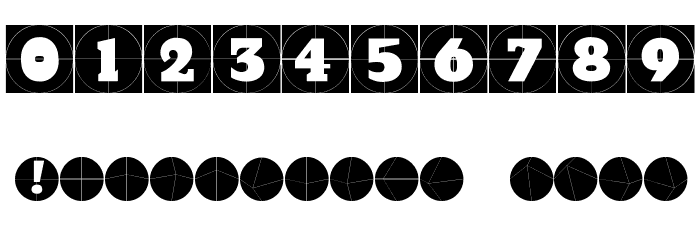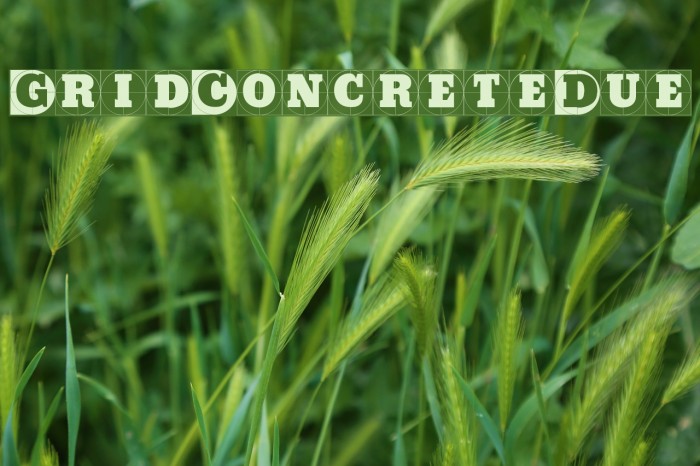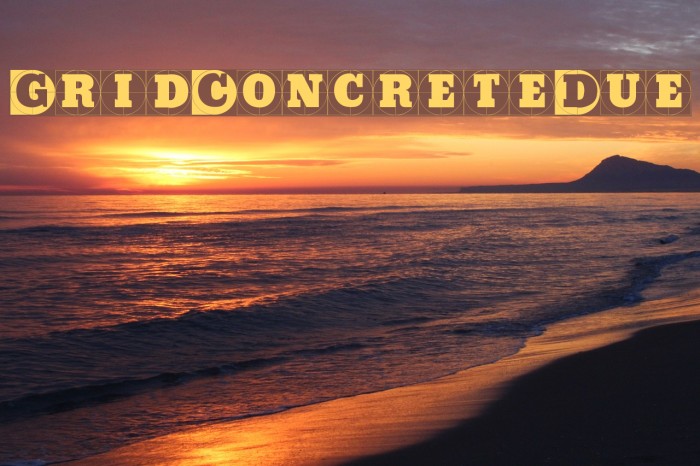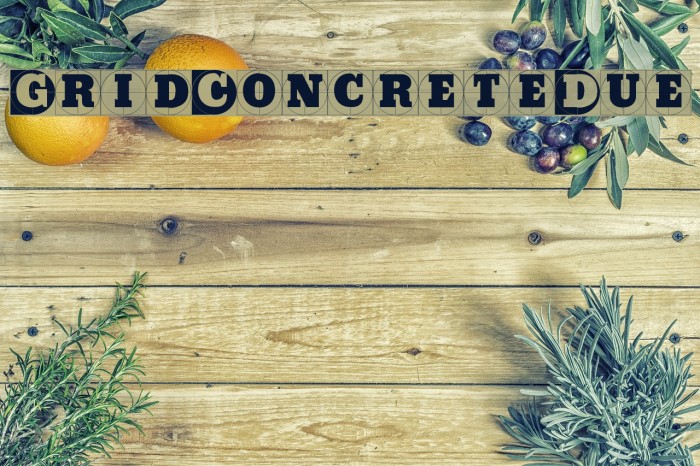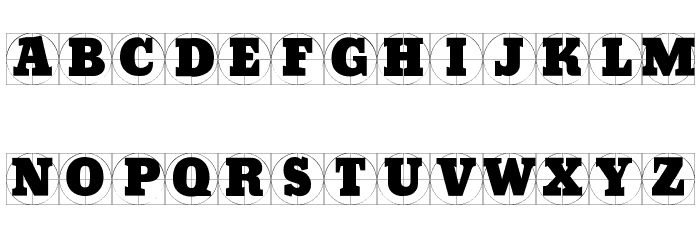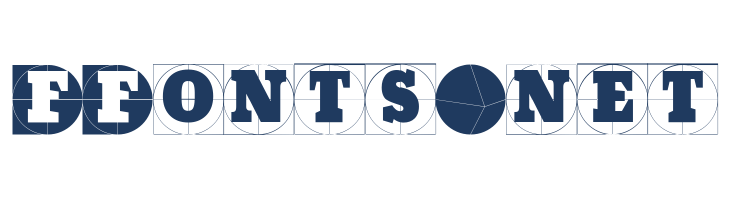
GridConcreteDue Font
GridConcreteDue Description
This font features a bold and geometric design, characterized by its strong, block-like letters that are enclosed within circular shapes. The uppercase letters are prominent and display a modern, industrial aesthetic. The numbers and special characters follow the same design principles, maintaining consistency throughout. The use of circles as a background for each character adds a unique, structured appearance, making it stand out as a decorative typeface. The overall look is striking and suitable for projects that require a bold statement.
| Proposed Projects | Ideal for branding, posters, and signage where a strong visual impact is desired. |